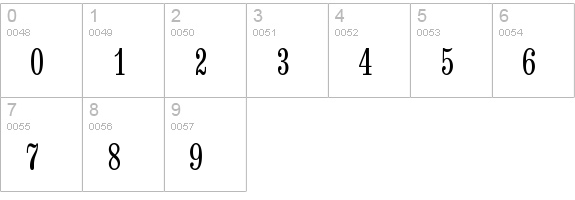
EgizioEF-Condensed Font Details
EgizioEF-Condensed is a distinctive, condensed-width variant in the EgizioEF typeface family \xE2\x80\x94 well suited to design and typography projects.
Introducing EgizioEF-Condensed, a stunning typeface that perfectly blends elegance with versatility. This font is the epitome of sophistication, featuring a condensed design that exudes a sense of modernity and sleekness. Its sleek and refined letterforms are crafted with precision, making every character a work of art. EgizioEF-Condensed is the perfect choice for various design projects, whether you're working on a professional branding campaign, crafting eye-catching headlines, or designing elegant invitations. Its condensed nature allows for maximum impact, with each character commanding attention and leaving a lasting impression. What sets EgizioEF-Condensed apart is not only its exceptional design but also its accessibility. This font is available free of charge, allowing designers and creatives to utilize its beauty without any limitations. You can easily download EgizioEF-Condensed at FontsMarket.com, a reputable source for high-quality fonts. With EgizioEF-Condensed, you can elevate your designs to new heights, effortlessly capturing attention and conveying your message with elegance. Its timeless appeal and versatility make it a must-have for any designer's toolkit. Whether you're looking to add a touch of sophistication or create a bold statement, EgizioEF-Condensed is the perfect font to bring your vision to life. Don't miss out on this incredible opportunity to enhance your design projects. Download EgizioEF-Condensed for free at FontsMarket.com and unlock a world of possibilities. Experience the seamless blend of elegance and functionality that this font offers, and watch as your designs come to life with unparalleled finesse.